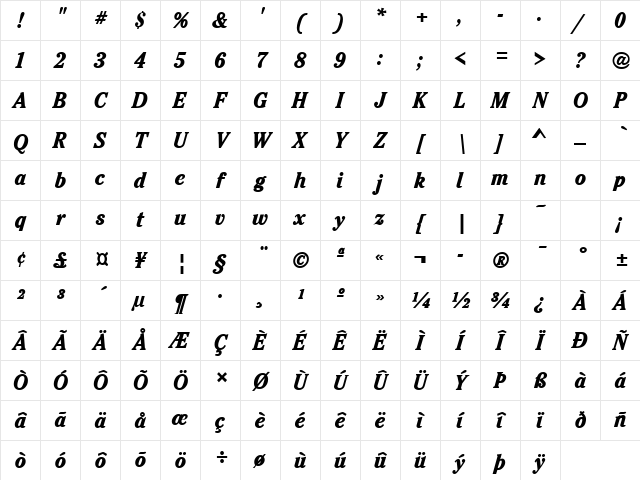
Complete CheltenhamCondLH Bold Italic glyph index. Displaying only characters natively supported by CheltenhamCondLH Bold Italic font.
CheltenhamCondLH is a composed and adaptable typeface that performs quietly and consistently across a wide range of design contexts. The slanted form adds forward momentum and visual energy. Its bold stroke weight gives it real presence on the page. Its narrow stance lets it pack a punch even in space-constrained designs.